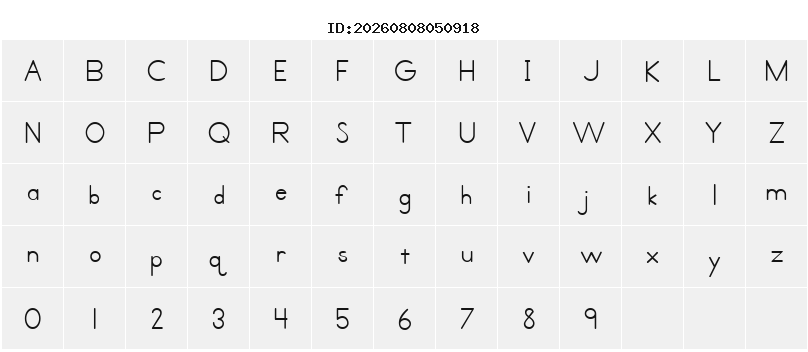
Primer Print Preview
• Font Name: Primer Print
About Primer Print.ttf
Primer Print.ttf is a modern, elegant sans-serif font designed for ultimate readability and visual harmony. Perfect for branding, headlines, web design, and print materials.